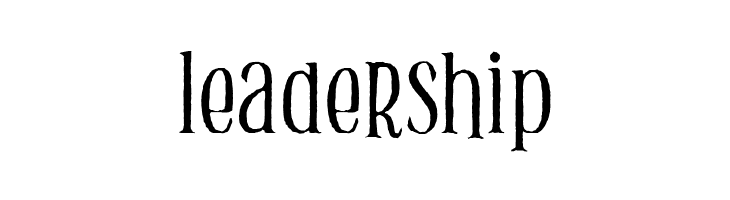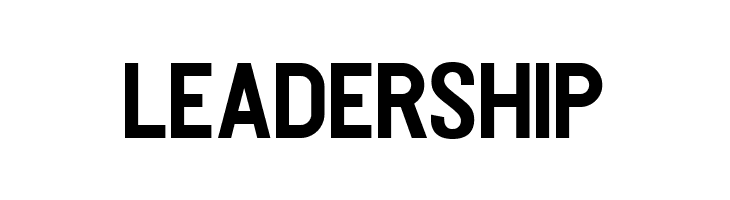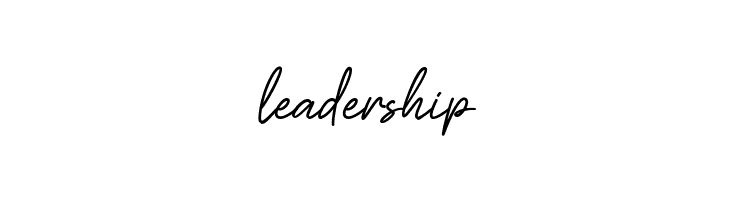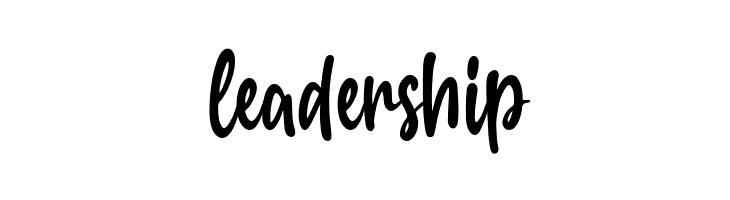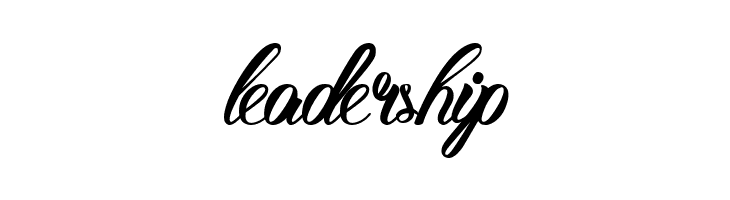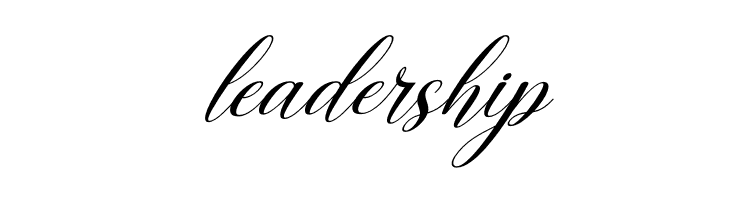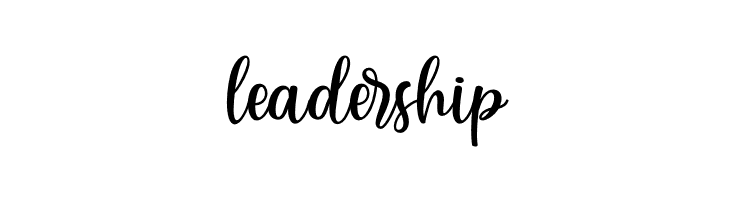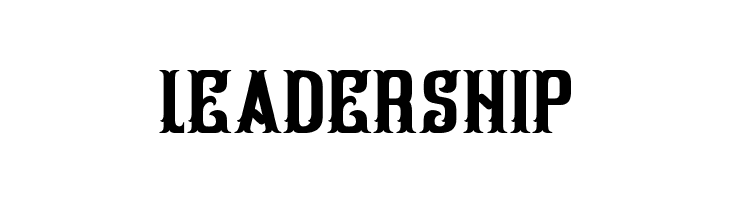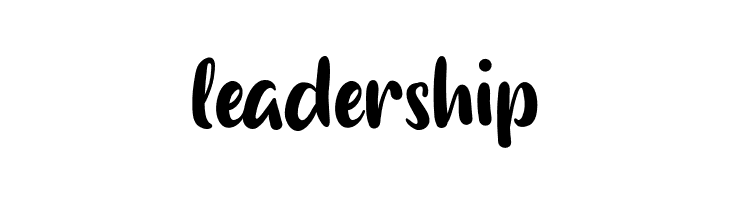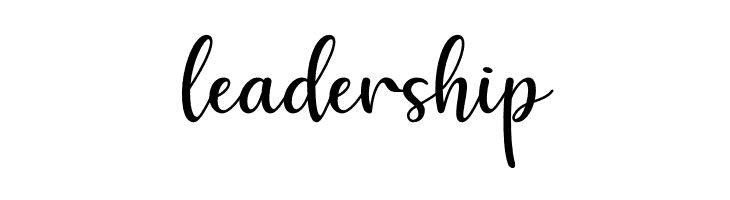
• hellena
An elegant, flowing script font with a handwritten appearance.
• Hellena Italic
An elegant, flowing script font with an italicized slant and ornate flourishes.
• Hellena Italic
A flowing, cursive font with elegant, interconnected strokes.
• Helleny
A graceful, cursive script font with a flowing, elegant style.
• Helleplus32
A bold, decorative font with outlined characters and strong contrast.
• Heller
A bold, modern font with clean lines and geometric style.
• Hellfire Club
Bold, hand-drawn display font with energetic, irregular shapes.
• Hellghost Rough Regular
A rough, hand-drawn font with a vintage, distressed look.
• Hellia Agera
A playful, rounded font with smooth curves and a friendly appearance.
• Hellia Agera Alternate
A playful, decorative font with leaf-like embellishments and rounded characters.
• Hellicopters Brush Script
A dynamic, brush-style script font with fluid, expressive strokes.
• hellifademo
An elegant script font with flowing lines and decorative swirls.
• Hellilove
An elegant, flowing script font with ornate uppercase and smooth lowercase letters.
• Hellilove Italic
An elegant, high-contrast script font with flowing, cursive characters.
• Hellington FREE
A bold, expressive handwritten font with playful curves.
• HellingtonFREE
A bold, expressive handwritten font with dynamic strokes and a playful vibe.
• Hellion Roots
A bold, distressed font with sharp, angular edges and a rebellious aesthetic.
• hellios
Loose, tall handwritten script with thin strokes.
• Hellios Gothic
A bold, Gothic-inspired font with sharp, angular edges and intricate detailing.
• Hellios Gothic
A bold, gothic-inspired font with sharp serifs and a strong vertical emphasis.